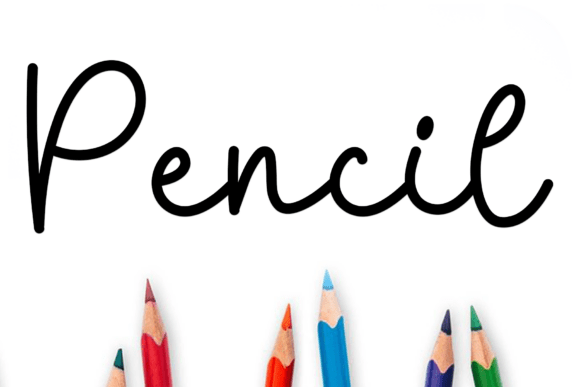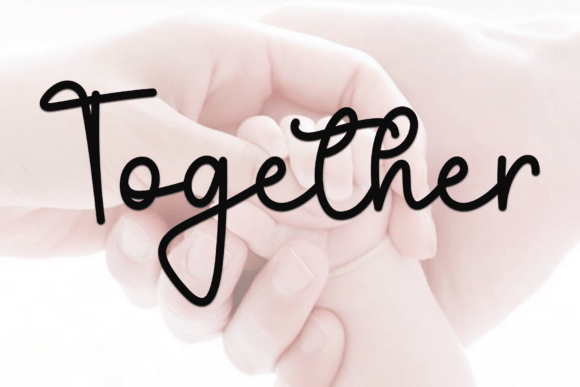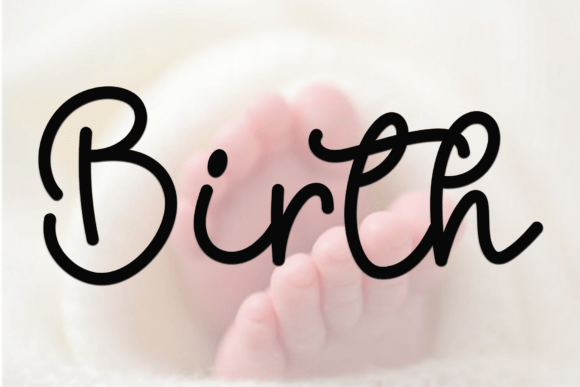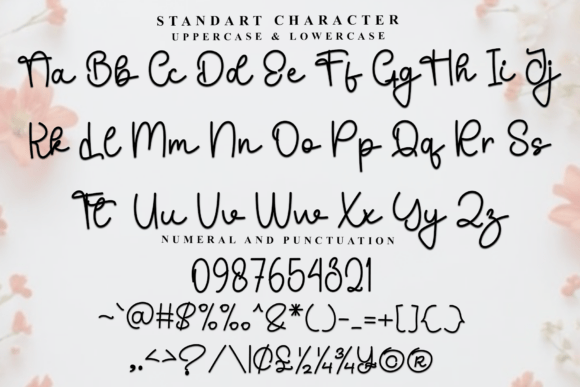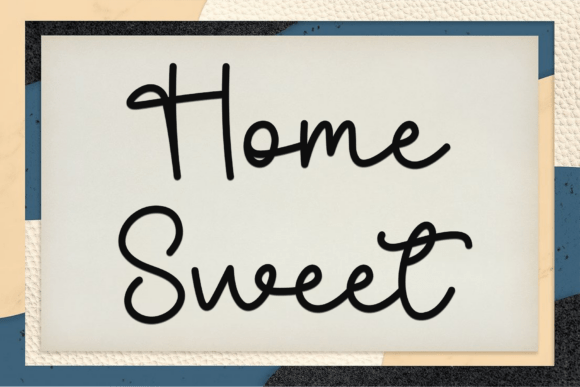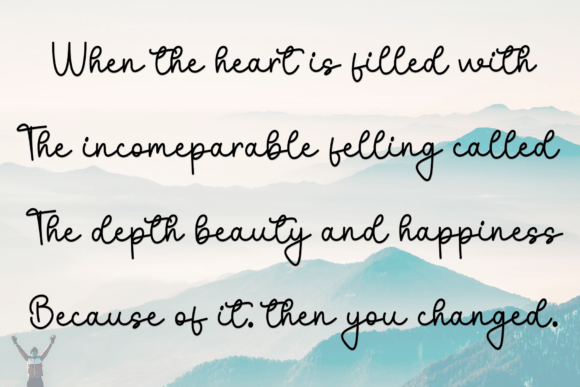
Find Your Adventure with the Boy Hiking Font
As you sit by the campfire, watching the stars twinkle above, the sound of a pen scratching against paper is the perfect accompaniment to a moment of introspection. It’s in these quiet moments that ideas are born, and the need for a font that captures the essence of adventure becomes clear. That’s where the Boy Hiking Font comes in – a modern script font that embodies the carefree spirit of the great outdoors.
This font is perfect for designers looking to add a touch of personality to their projects. With its smooth, flowing lines and relaxed rhythm, the Boy Hiking Font is ideal for outdoor-themed designs, travel blogs, and nature-inspired branding. Its approachable look and natural charm make it a valuable addition to any designer’s toolkit.
Boy Hiking Font Key Features
- Font Family: A unique, handwritten font designed specifically for outdoor enthusiasts, with a casual and adventurous feel.
- Language Support: Supports a wide range of languages, including Latin, Cyrillic, and Greek scripts, making it a versatile font for global audiences.
- Unique Characteristics: Features a distinctive, hand-drawn style with subtle imperfections, giving it a charming and authentic feel that evokes a sense of adventure and exploration.
Boy Hiking Font Review
When I first laid eyes on the Boy Hiking Font, I thought it was going to be a straightforward, playful font perfect for outdoor-themed projects. And while it does deliver on that aspect, there are some things to consider before diving in.
- The font’s energetic and adventurous vibe is spot on for outdoor enthusiasts.
- The letterforms are well-designed and easy to read, even at smaller font sizes.
- The font’s versatility makes it suitable for a range of projects, from logos to signage.
- The font’s simplicity may not be enough to stand out in a crowded design market.
- The lack of a bold or condensed version may limit its use in certain design scenarios.
- The font’s “outdoor” theme may not be as broad in appeal as a more neutral font.
Overall, the Boy Hiking Font is a solid choice for designers looking to add a touch of adventure to their projects. While it may not be the most versatile font out there, its unique vibe and well-designed letterforms make it a great option for outdoor-themed designs.
The Boy Hiking font is perfect for:
- Outdoor-themed designs, such as hiking or camping brochures.
- Children’s educational materials, such as workbooks or activity sheets.
- Adventure-themed marketing materials, such as posters or flyers.
Remember to use the Boy Hiking font in moderation to avoid overwhelming your design. It’s best used for headings or titles to add a fun and adventurous touch.